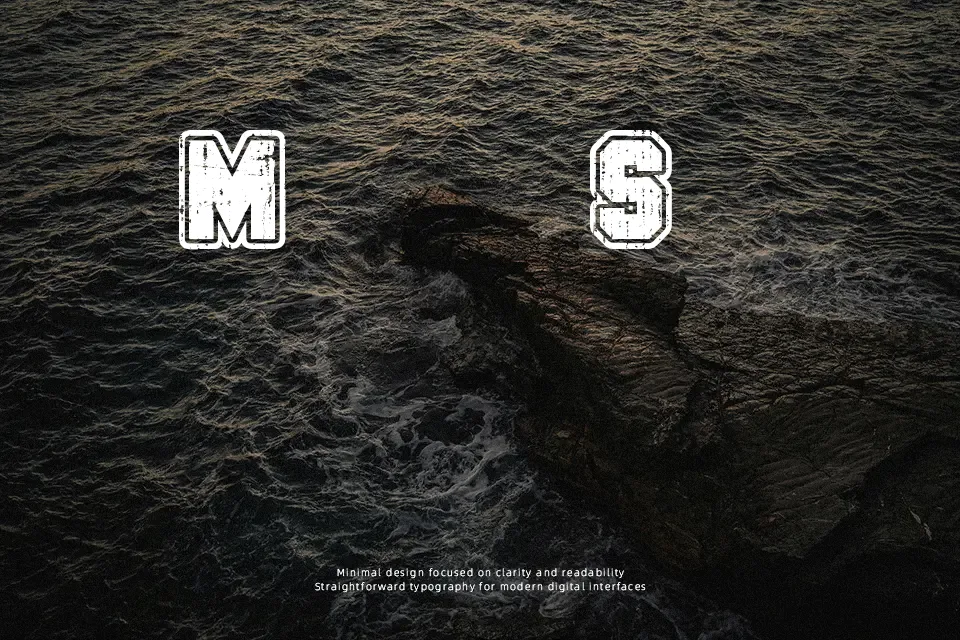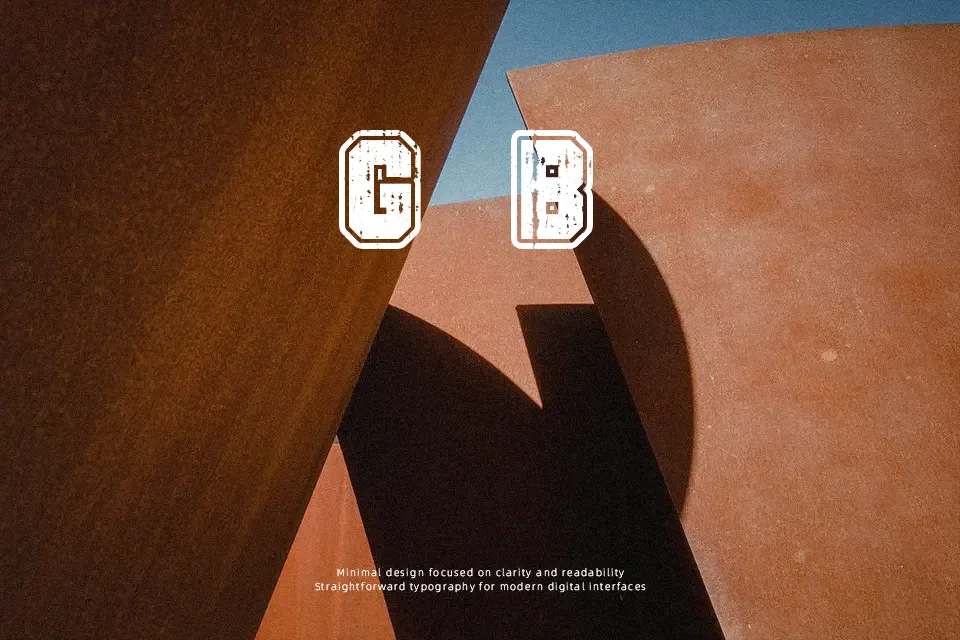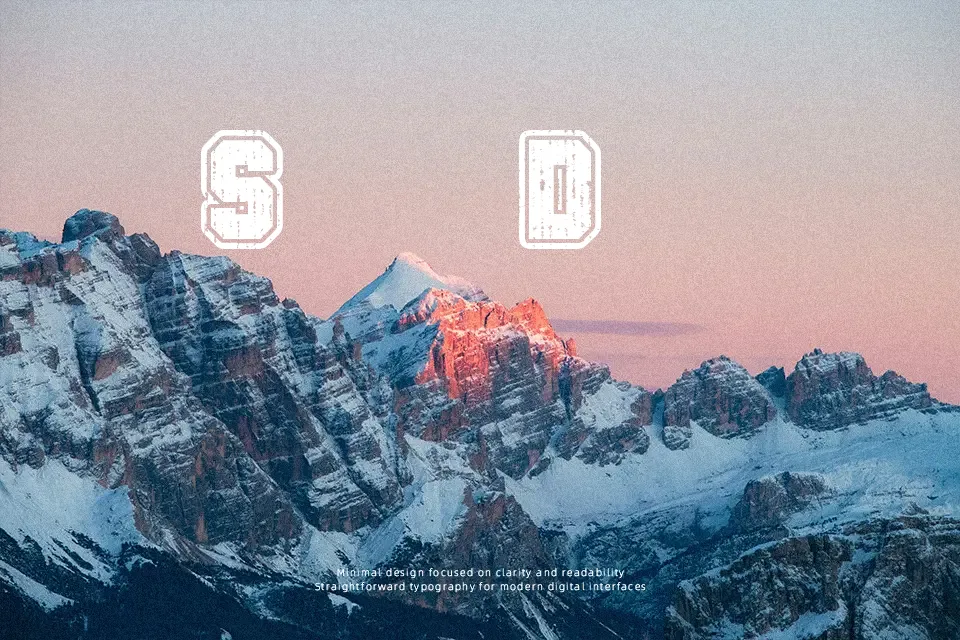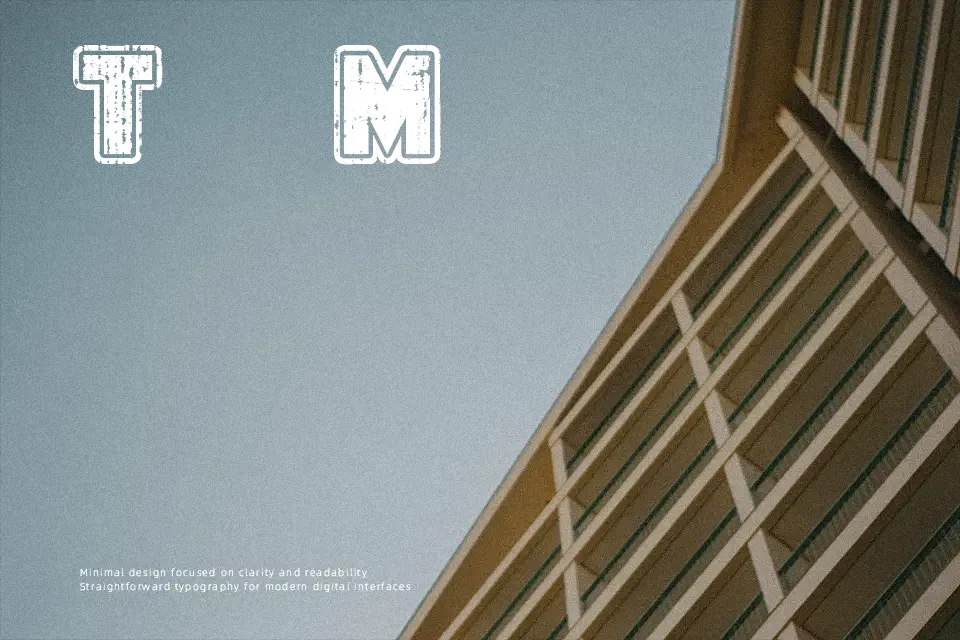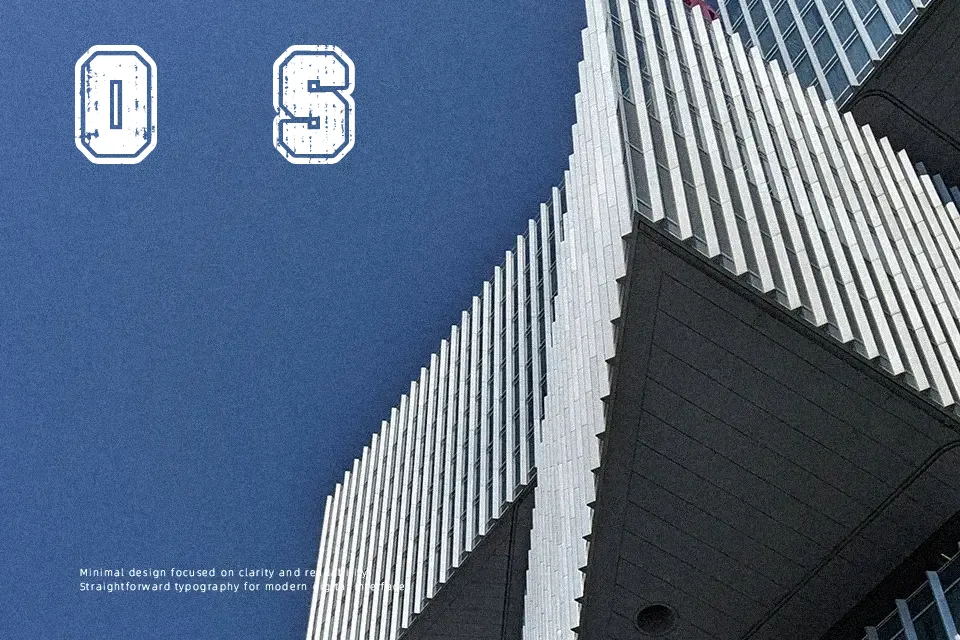
Campus Riot Font
Designed by imagex
Campus Riot is a chunky, distressed display font with uneven edges, heavy strokes, and loose spacing that reads like hand-drawn letters rushed onto a protest banner. It leans casual and chaotic rather than polished, so it shines when you want raw energy instead of corporate neatness. Use it for gig posters, college club graphics, zines, social media promos, or bold header text where legibility at large sizes matters more than clean detailing. It struggles in long paragraphs, small UI labels, or projects that require a refined, professional tone, so pairing it with a simpler sans serif for body copy is usually necessary.
gritty campus event posters
sports or club graphics with attitude
music flyers and zines
bold social media headers
body text or long paragraphs
formal branding or corporate reports
small UI labels or app interfaces
elegant wedding or luxury packaging
Perfect for advertising, headline, and poster, with a bold and decorative style.